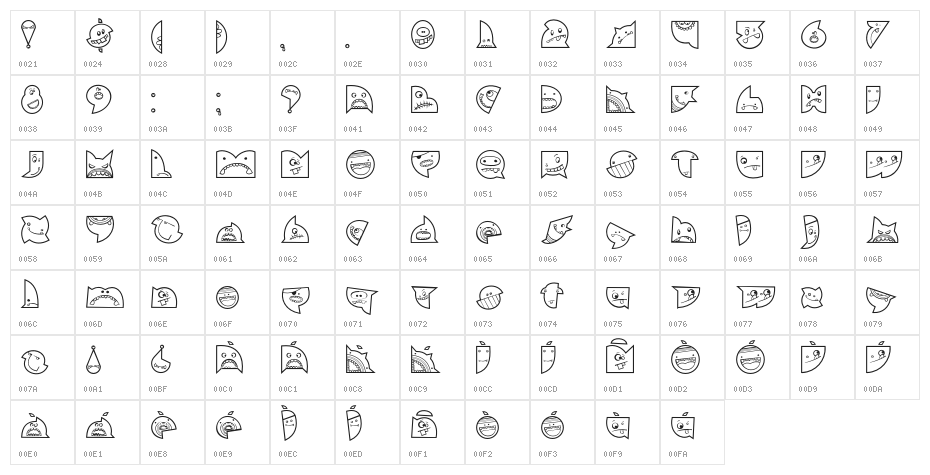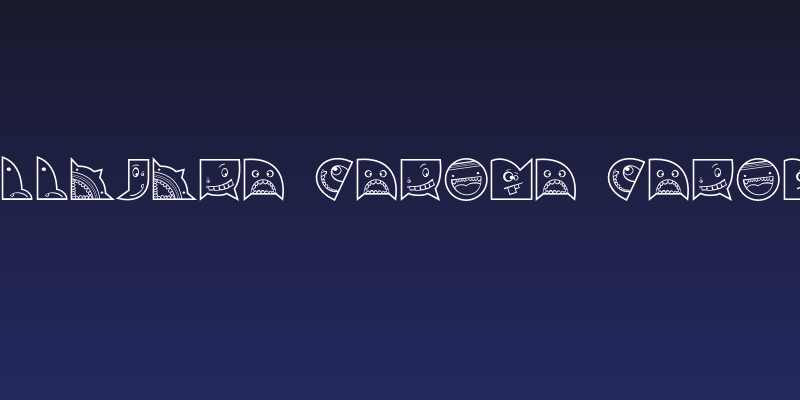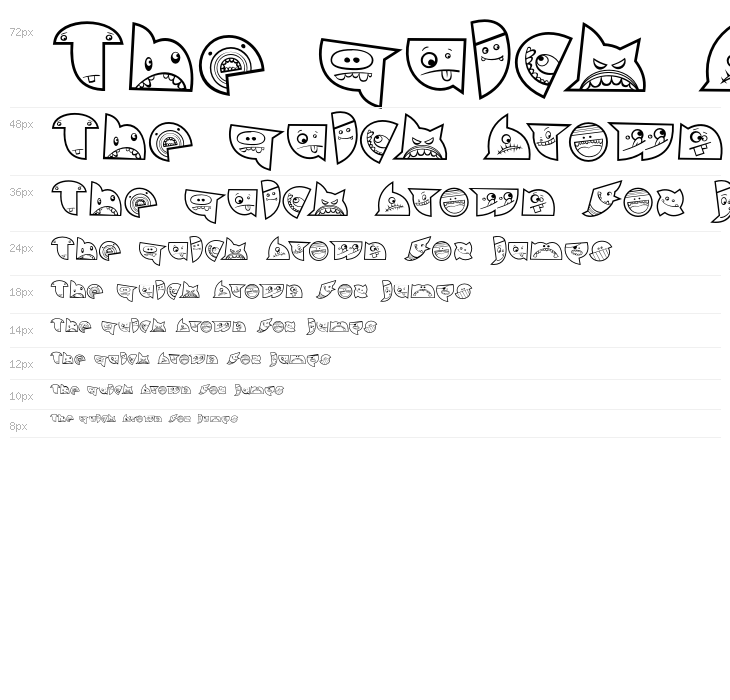
callejera carona carona Font
callejera carona carona Description
This playful and whimsical font features characters with quirky, cartoon-like faces integrated into each letter and number. Each character is uniquely designed with expressive eyes and mouths, giving the font a lively and animated appearance. The style is bold and decorative, with each letter enclosed in a rounded, irregular shape that adds to its charm. The font is highly decorative, making it ideal for projects that require a fun and engaging visual element. Its unique style is perfect for children's books, playful branding, or any design that seeks to capture a sense of humor and creativity.